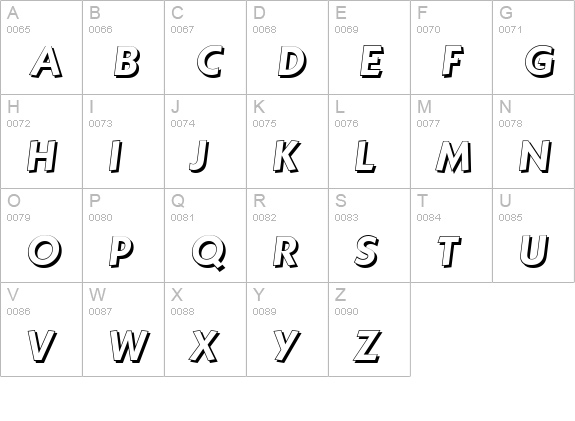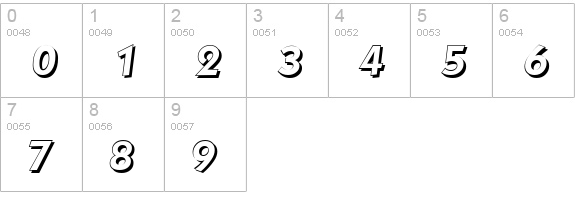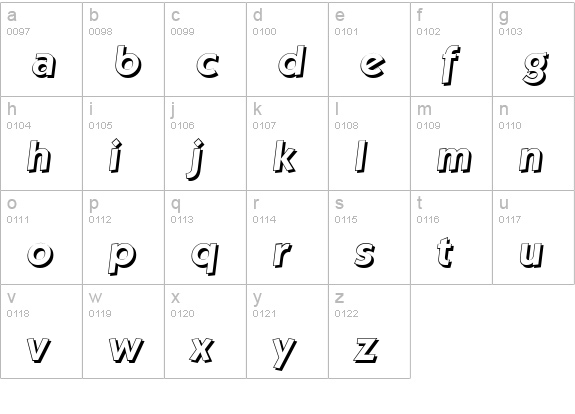
KoblenzShadow-BoldItalic font exudes a sense of bold elegance with its striking design and unique italic style. This font is perfect for creating eye-catching headlines, stylish logos, and sophisticated branding materials. The bold weight and shadow effect of KoblenzShadow-BoldItalic add depth and dimension to any design project, making it stand out from the crowd. What's even better is that KoblenzShadow-BoldItalic font is available for free download at FontsMarket.com. Whether you're a designer looking to add a touch of sophistication to your projects or a creative individual seeking a stylish font for personal use, KoblenzShadow-BoldItalic is the perfect choice. Download this stunning font today and elevate your designs to new heights.